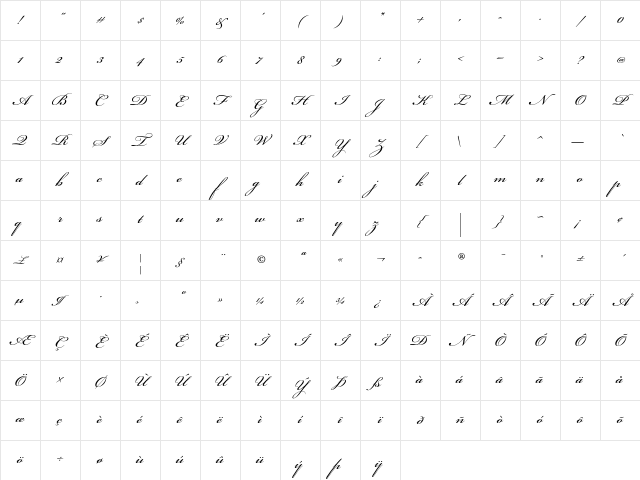
Bickham Script Std Regular
Designer: Richard Lipton
Complete Bickham Script Std Regular glyph index. Displaying only characters natively supported by Bickham Script Std Regular font.
Design Context for Bickham Script Std
Bickham Script Std flows with the natural rhythm of handwritten lettering, making it ideal for designs that call for warmth and personal expression.
Font Pairing: Combine Bickham Script Std with a simple geometric sans for maximum contrast - the tension between flowing curves and clean structure is a classic typographic pairing.
Pro Tip: Use Bickham Script Std for short runs of text - names, titles, or taglines. Extended body copy in script faces tires the eye quickly.